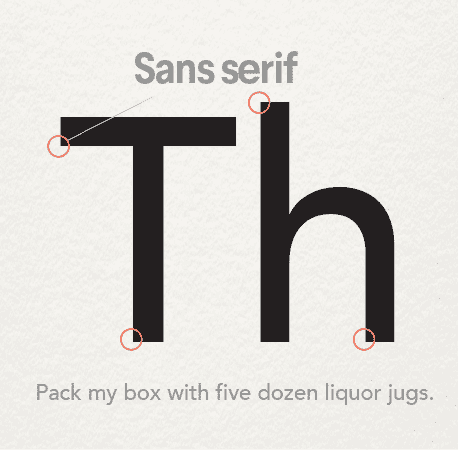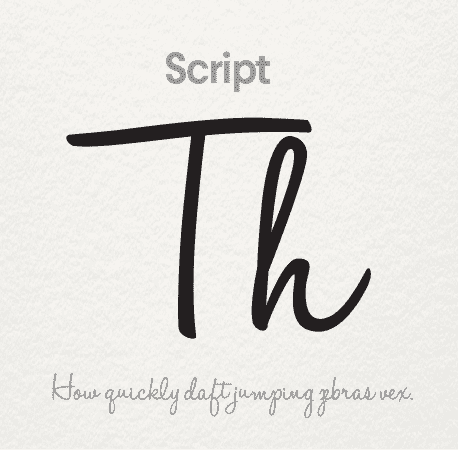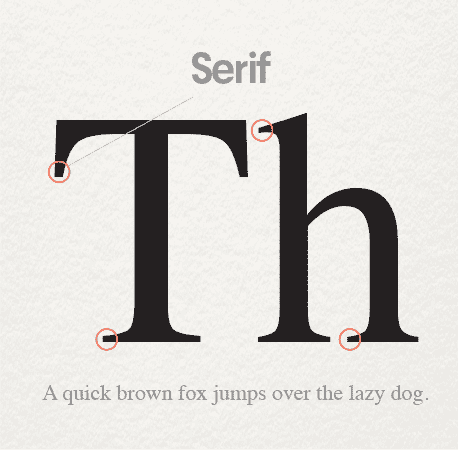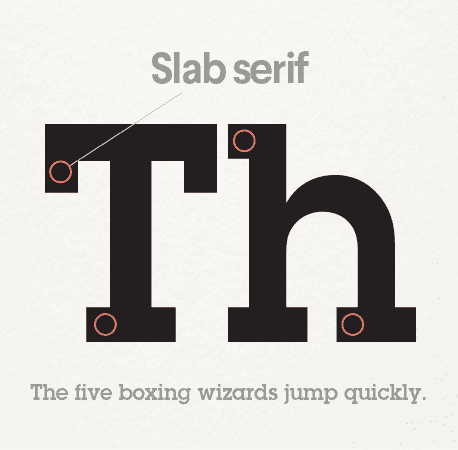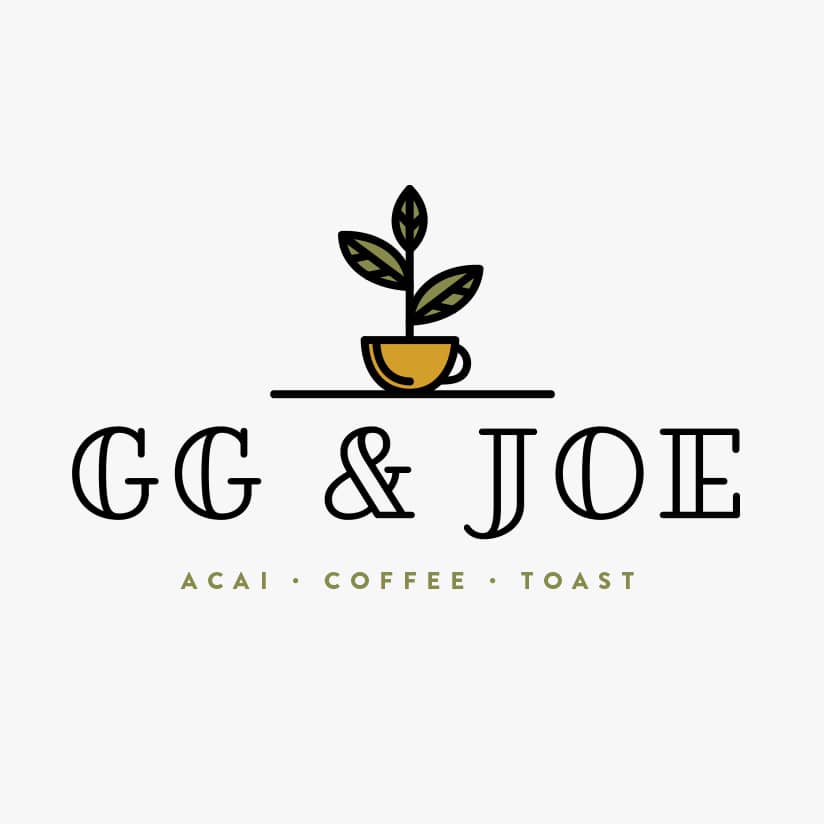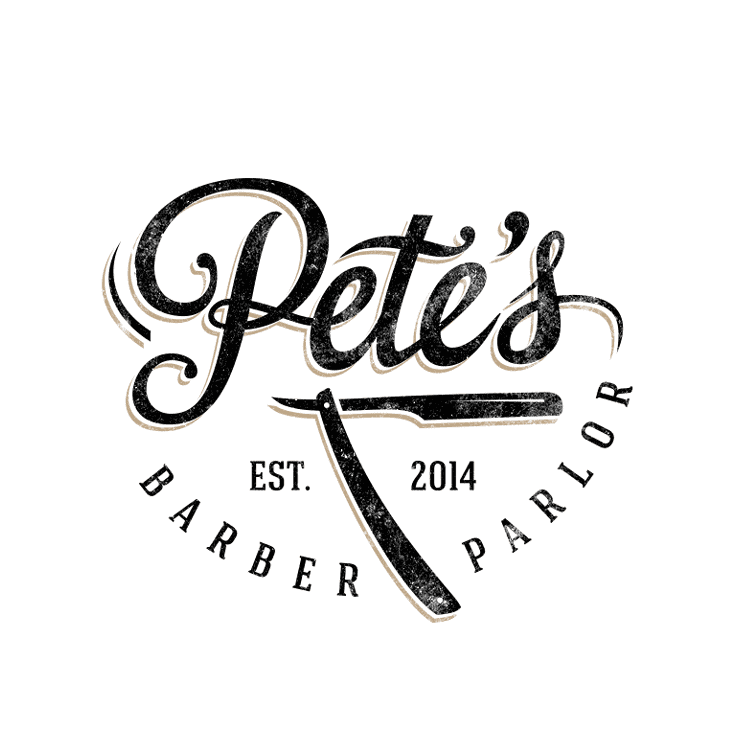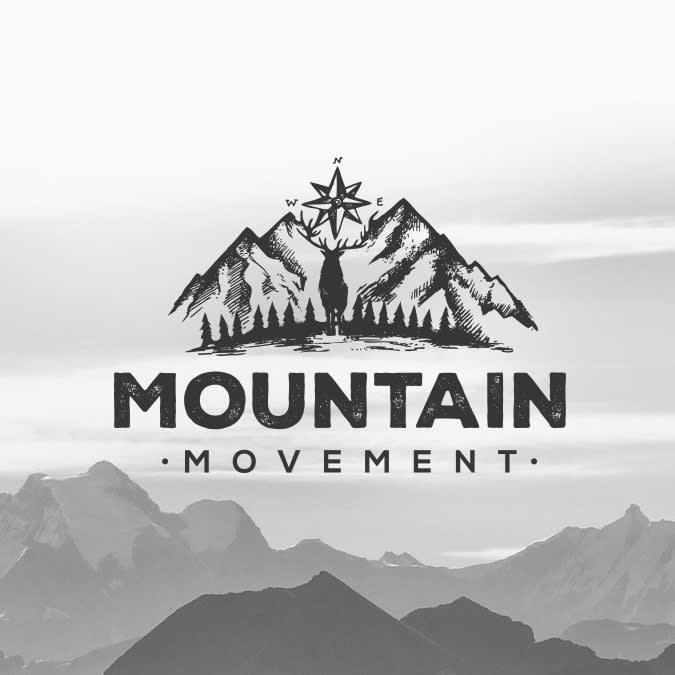
Logo fonts can make or break your logo design. Choosing the right typography can help tell your brand story and amplify the impact of your logo whenever and wherever people see it. But the wrong font could spell trouble. There are thousands of logo fonts out there, and that’s why we’ve put together this list of the most notable, game-changing logo fonts of all time.
Many of these fonts are great as they are, but looking at them can also be a great way to get inspired about your logo design. They can be altered and modified in a multitude of ways to give your brand a unique feel. Picking the best font style for your logo is important, so be sure to spend some time selecting the perfect one for your brand.
In this article we’ll deep-dive into different fonts, explain what makes them unique and offer some ideas of how to use them.
How to select the perfect logo fonts
Start selecting your company logo fonts by first determining your brand personality (how your brand sounds and feels to your audience). Then consider which fonts evoke those same ideas and feelings you’re going for.
There are several types of fonts, or font families, to choose from, and each one tells a different brand story. Pick a font style and type that works with the style of logo you’re envisioning. Looking for a logo with a modern and minimal style? Then a sans serif font will be best for your logo. Want your logo to be more traditional and classic? Go with a serif font.
Serif logo fonts have decorative “feet” at the ends of each letterform and evoke a polished, classic feeling.
Slab serif logo fonts are bolder, louder serifs with large letterforms designed to be seen from a long distance.
Script logo fonts are both formal and casual typefaces that have the loops and flourishes of script handwriting.
Sans-serif logo fonts lack the “feet” at the ends of each letterform and are considered more modern than their serif counterparts.
How many fonts should you use in a logo?
You should use no more than 2 or 3 different logo fonts in your logo design. Any more than that and your logo design will look too busy and inconsistent. The number of fonts also depends on the amount of text you’re incorporating in your logo. Choose one font for your main brand name and another font for additional supporting text, such as your tagline or brand description.
How to combine logo fonts?
A great design that combines several different fonts in one logo. Logo design by Aga Ochoco via 99designs by Vista.
When combining different logo fonts in one logo design you want to make sure the fonts complement each other.
Pick one main font for your brand name that represents your brand’s style the best. It should be the most eye-catching out of the fonts you selected. Any additional fonts need to be more subtle.
- It’s a good idea to combine a statement font with a more subdued sans-serif font.
- Another option is to combine different versions of the same font: try combining the font of your choice in italics, bold or all caps.
- Avoid combining different statement fonts, such as serifs with slab serifs or a script font with another script font.
Here are the 60 top logo fonts everyone should know:
1. Bodoni
The Bodoni typeface surfaced during a time when typeface designers were experimenting with the contrast between thick and thin type characteristics. Giambattista Bodoni took that experiment to an extreme, creating this dramatic font. It has resonated through time in famous logos like Vogue and Calvin Klein and is a great font to consider for mainstream fashion brands.
As you’ll see below, Bodoni has a lot in common with the Didot family of typefaces because it was created around the same time in history. Regardless, the Bodoni typeface has its own style.
Consider this logo font for fashion industries that are pushing the extremes on the runway!
2. Choplin
Based on the unconventional Campton font family, Choplin is a geometric slab serif by German type designer René Bieder. It’s modern, clean, and sturdy, drawing inspiration from Gill Sans and Johnston Sans while holding onto standout contemporary elements. As it lends itself well for photography layouts, editorials and assertive headlines, Choplin is a good font to consider for more assertive branding.
Choose this logo font for contemporary and narrative magazines and journals.
3. Garamond
Garamond is more of an umbrella term for typefaces than a single typeface. Many of the iterations we see in recent decades are interpretations of alphabets designed by Claude Garamond and Jean Jannon in the 16th century.
Logo fonts make the logo
Now that you’ve got a much better grasp on the variety of typography styles, you’ll be able to make better decisions about your logo fonts. With a keen eye, you can find the perfect typographic match for your brand. If you want to go deeper, check out these beautiful typographic logos and get inspired!